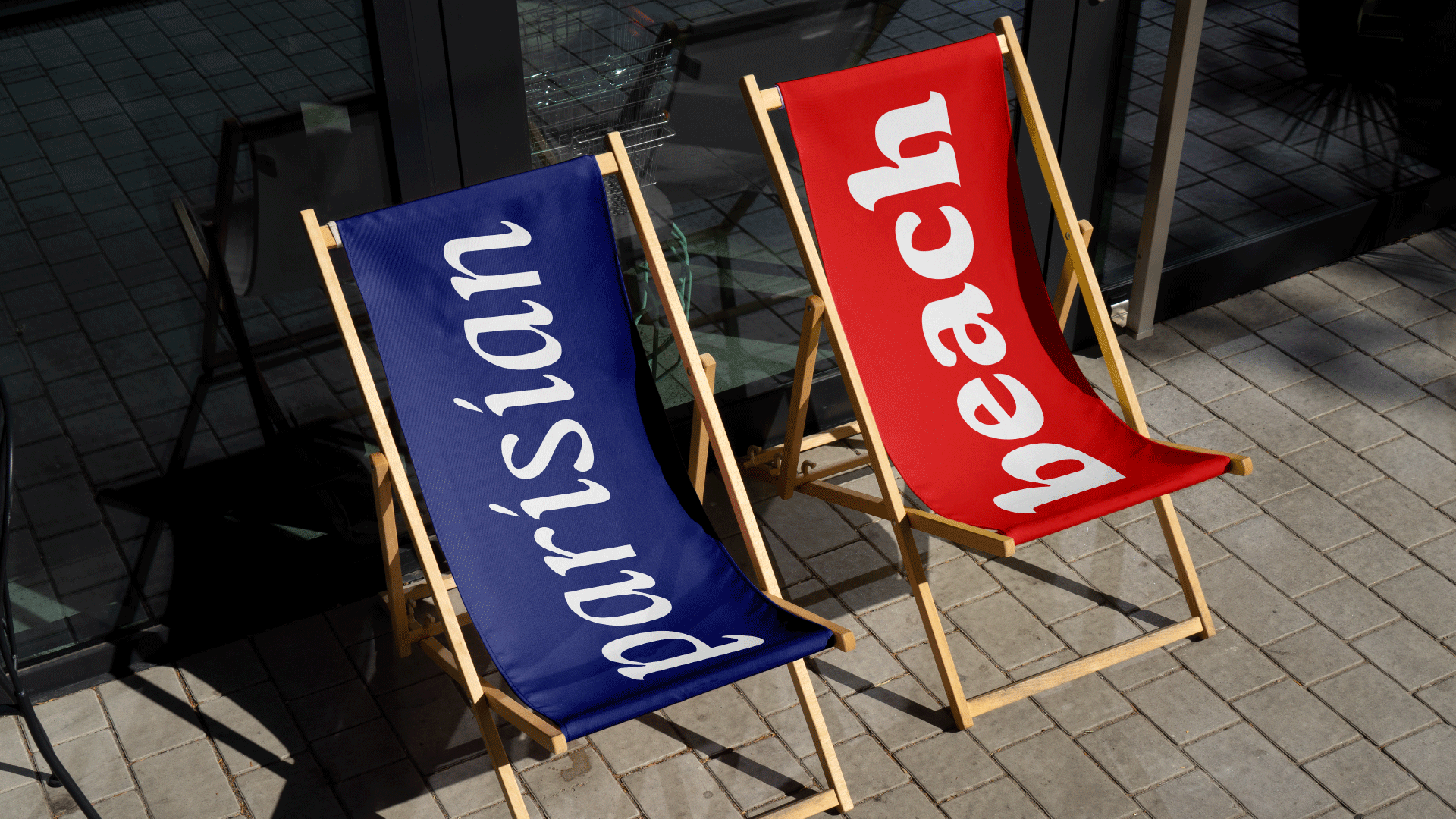
Enri
Enri is about a summer in Europe.
The typeface is inspired by the French artist, Henri Matisse. In Matisse’s world of colour and papercuts, there is a joy of spring and summer. The abundance, the generosity.
The letterforms aim to mimic his joyousness for nature; the world alike. A simplicity with some quirks. I first interacted with Matisse’s papercuts in the winter of 2014 at the MoMA in New York. So when I had to choose a subject, it was an apparent merger of my many interests between art, papercuts, travel, France and type design.
With Enri, I hope to embody Matisse’s words – ‘Drawing is like making an expressive gesture with the advantage of permanence.’
When I first started drawing letters with Matisse’s cut-outs, I was inspired by works such as Banco by Roger Excoffon and Swift by Gerard Unger. The sharp cuts and smooth movements that felt like papercuts. Upon some initial conversations with the professors, I looked more closely at Matisse’s style of cut-outs. To try and build something closer to his style rather than just paper cuts. The looping nature along with some sharp contrasts helped build ink traps, the play of sharp and curves gave rise to an interesting asymmetric serif as no two cuts can be the same. Enri Black brings out a lot of these nuances forth vividly. And with the display reverse stress, the brief turned on its head – the fun truly came alive.
With Enri, it’s always spring and summer. Time to play?